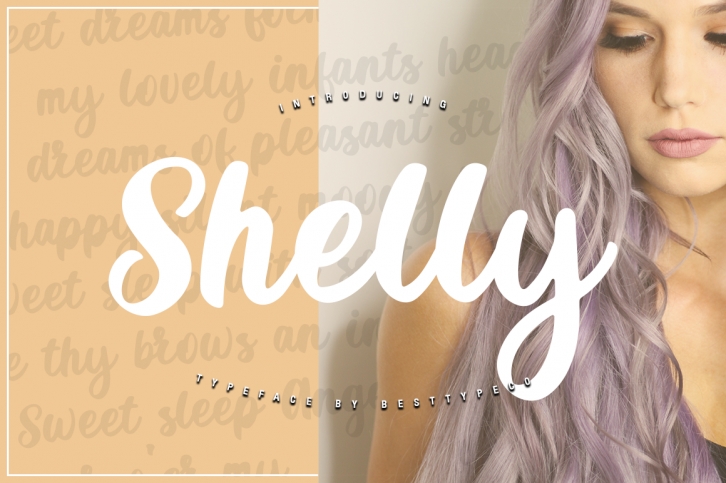
Shelly is a great font that was designed by Besttypeco. Imagine the amount of combinations you can create using this font! The archive is 8.6 MB and it was released on October 29, 2019. Shelly looks beautiful on wedding invitations, greeting cards, logos, posters, labels, t-shirt designs, logos, business cards and is perfect for use in ink or watercolor works, fashion, magazines, packaging and food menus, children's books and more!